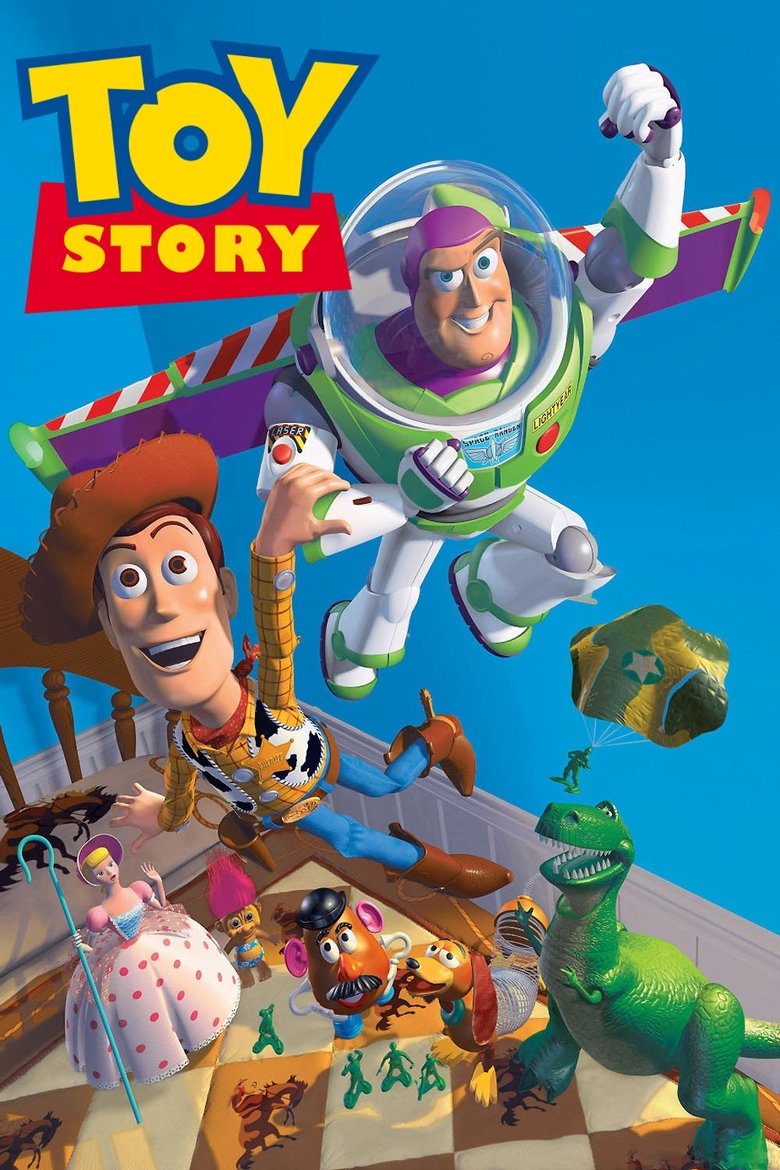
About the Toy Story font
Toy Story's playful logo bounces with rounded cartoon energy. Luckiest Guy delivers that same fun, chunky animation feel for free.
What font is used in the Toy Story logo?+
The original Toy Story logo uses custom lettering. This generator recreates the look with Luckiest Guy — a free, open-license font you can style and download.